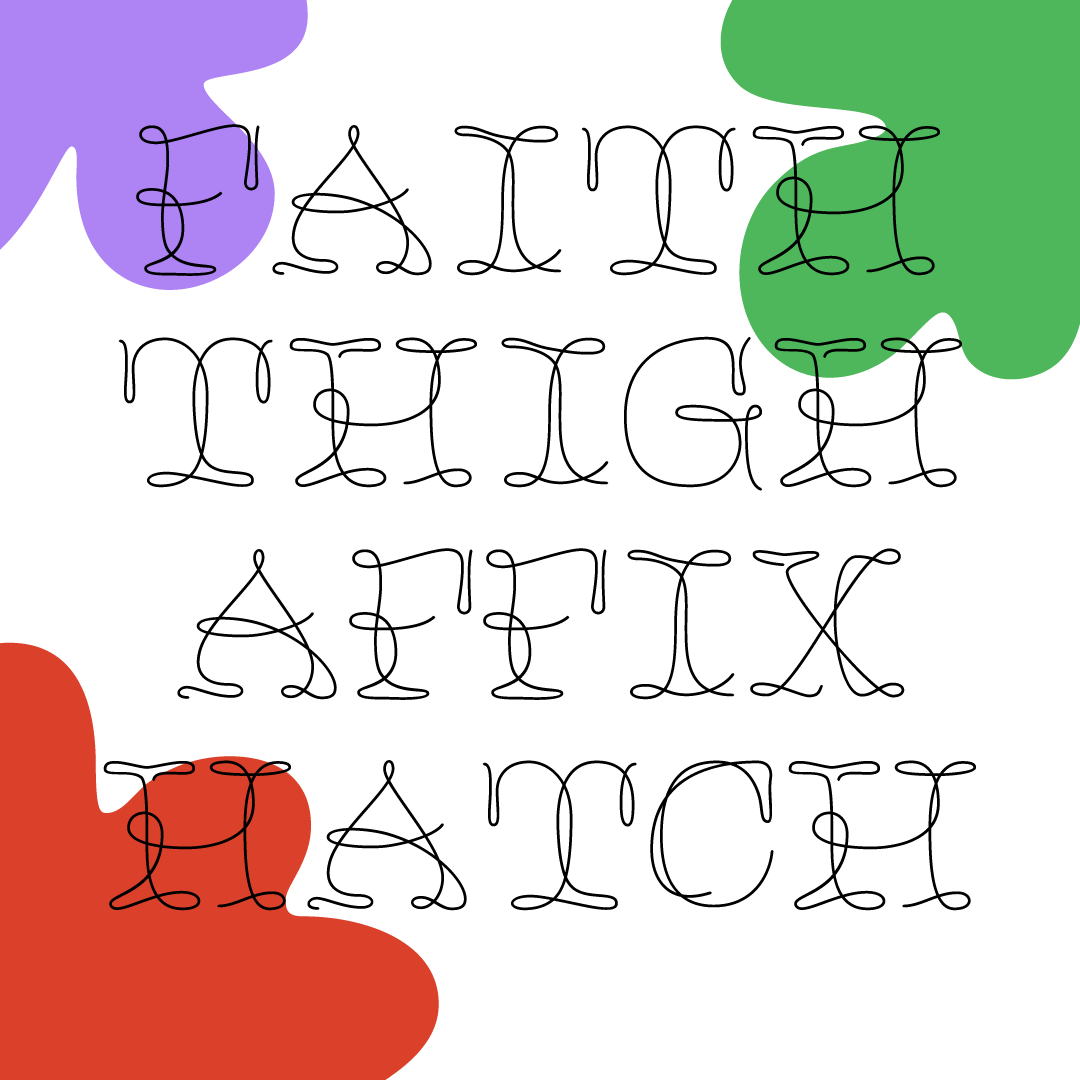
Week 7: Mr Rightside
This week’s font is based on blind contour drawing! While it’s not a true blind contour, it’s definitely inspired by the style of drawing. This was one of those ideas on my list that I could never visualize but I took a stab at it and it came together better than I thought!
The process was pretty straightforward. I sketched each letter to figure out where the visual weight and curves would be. I really wanted each letter to be a unique drawing (which means no copying and pasting :( ). This font was made possible because of the offset path (aka stroke) tool in Glyphs. After some trial and error, I learned that the tool works best if you have points on all the extremes and add extra points to any long segments/curves. Otherwise it glitches a bit and will add some weight in weird spots. This is honestly a great method for checking your curves because as soon as you add the stroke to them any blips you have will become unbearably prominent.
Yesterday, I put out a request on my Instagram post for name ideas and got so many great responses!! It was a tricky one to nail down. Ultimately, I decided to riff off of Kevin Barrett Kane’s (@kevin.barrett.kane) suggestion. He suggested Rightside because we learn blind contour drawing with the right side of our brain but I’m adding a Mr in front of it so it’s more like that one song from the Killers. We gotta keep it a little silly around here, right? The runners up were Lasso-Rated from Lauren Munro (@laurenmunrosalyers) and Undulator from Tiffany Wardle de Sousa (@typegirl). It was really fun to include everyone in the naming process!